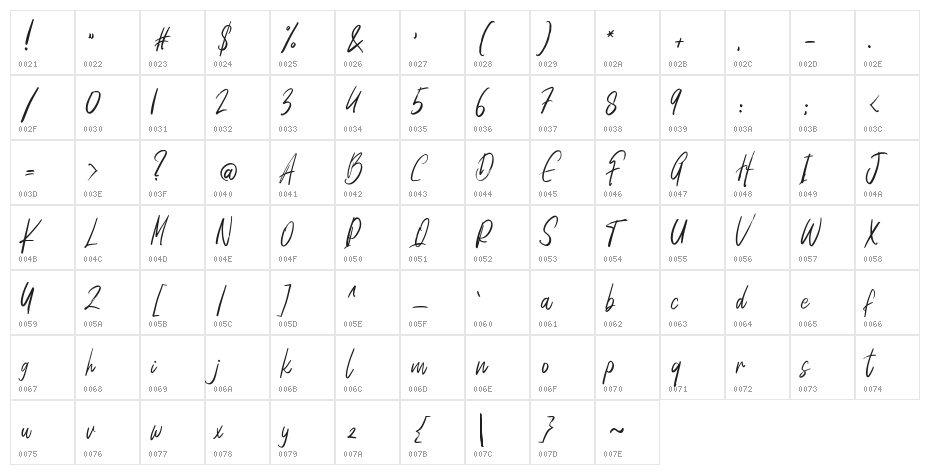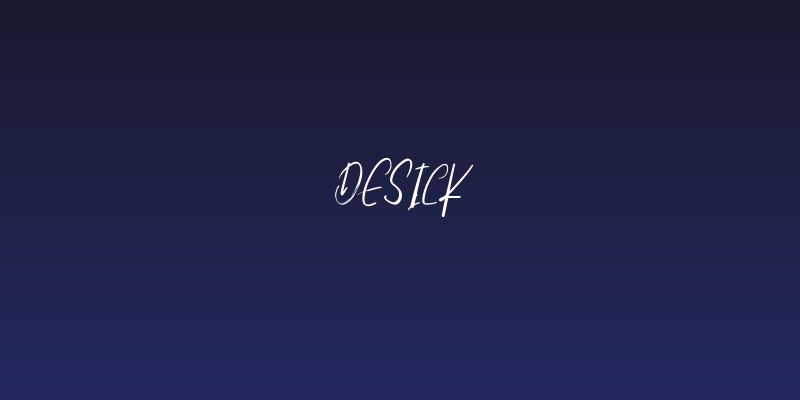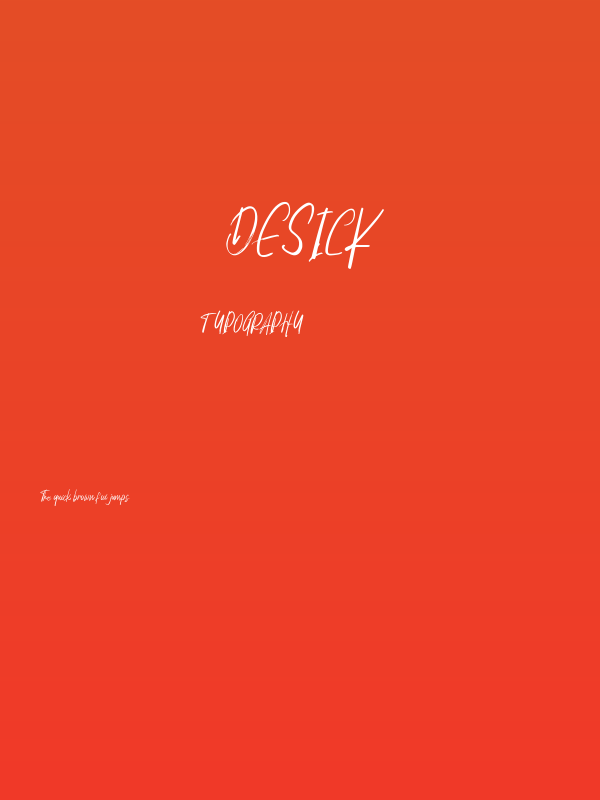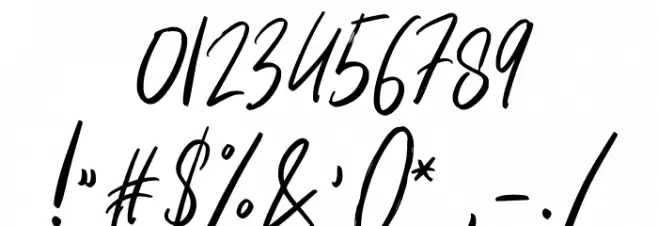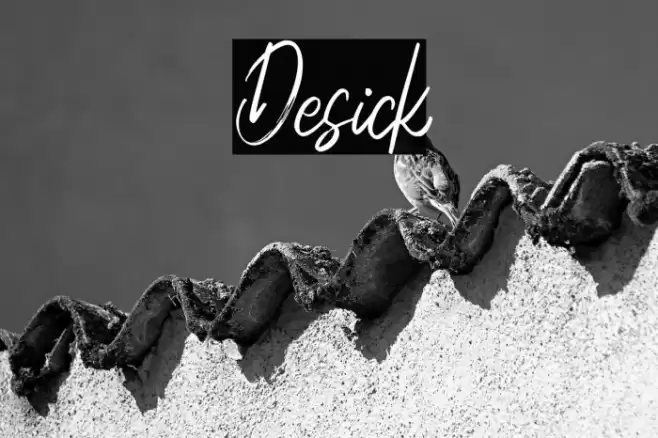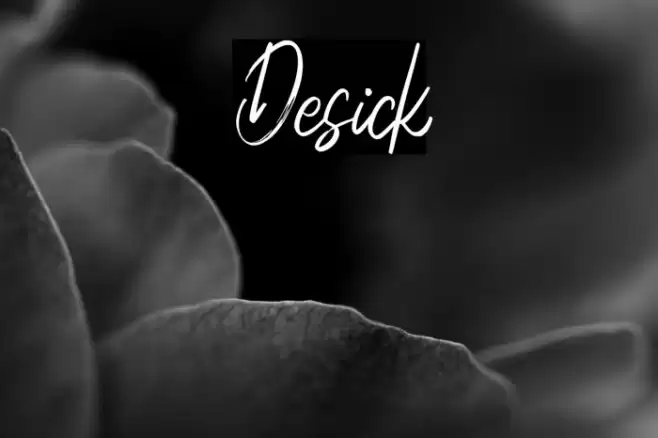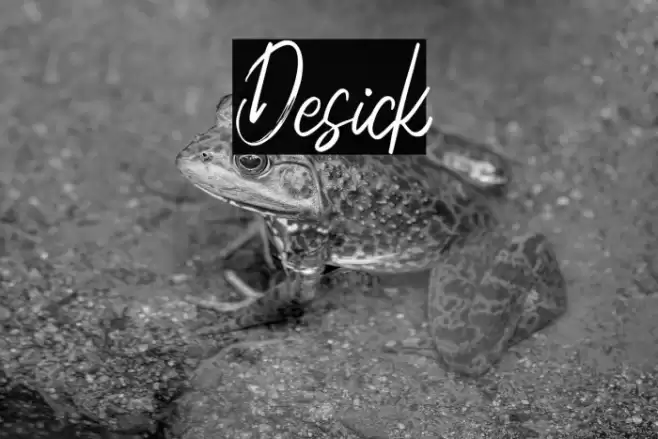
Desick Font
Desick Description
This font features a dynamic and expressive handwritten style, characterized by its fluid and slightly slanted letterforms. The uppercase letters are bold and elongated, giving a sense of movement and energy. The lowercase letters maintain a consistent flow with a casual elegance, making them highly legible. Numbers and special characters are crafted with the same attention to detail, ensuring uniformity across all glyphs. The strokes vary in thickness, adding a natural and organic feel to the overall design. This font is perfect for projects that require a personal touch, such as invitations, greeting cards, or branding materials that aim to convey creativity and warmth.